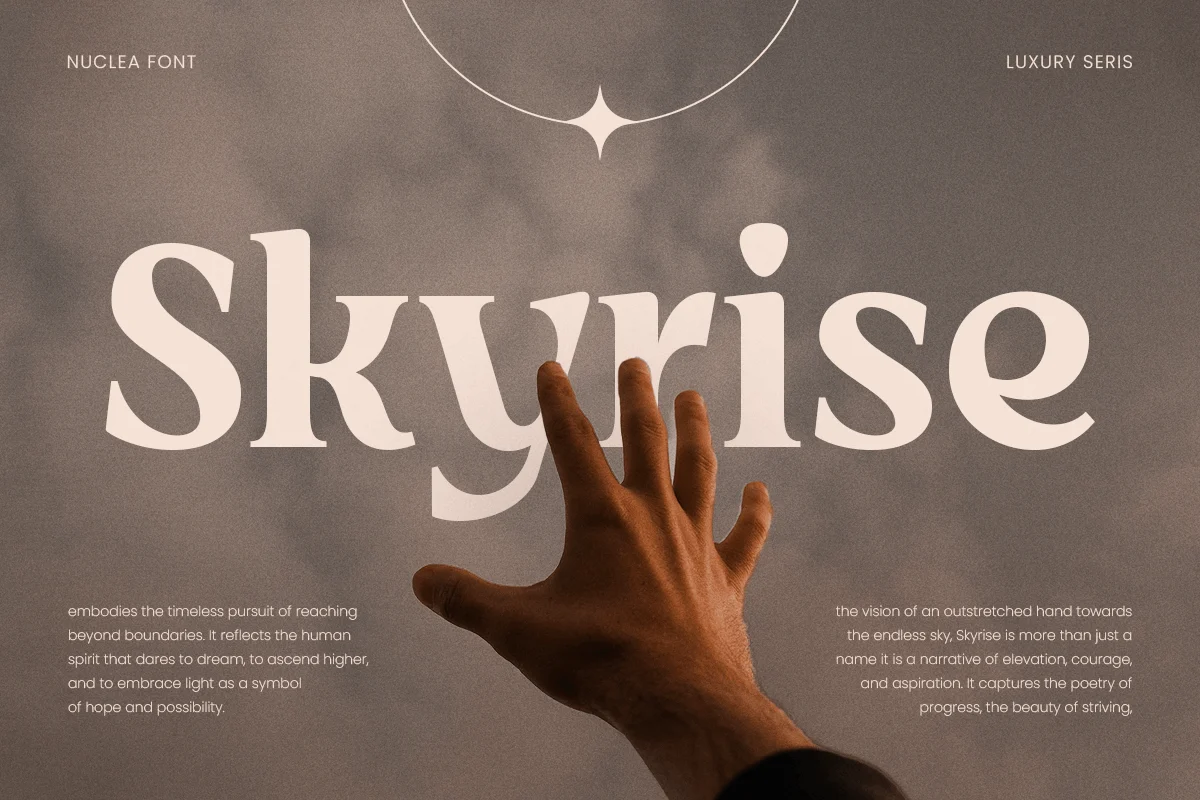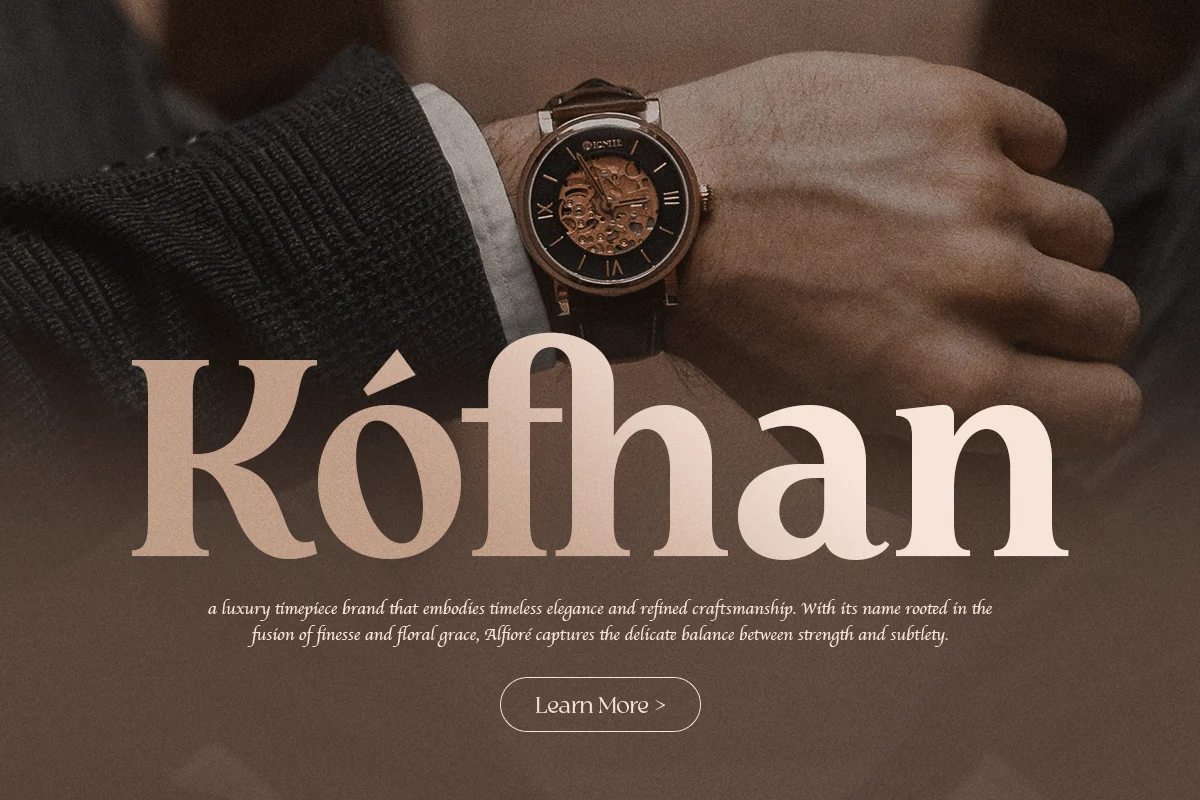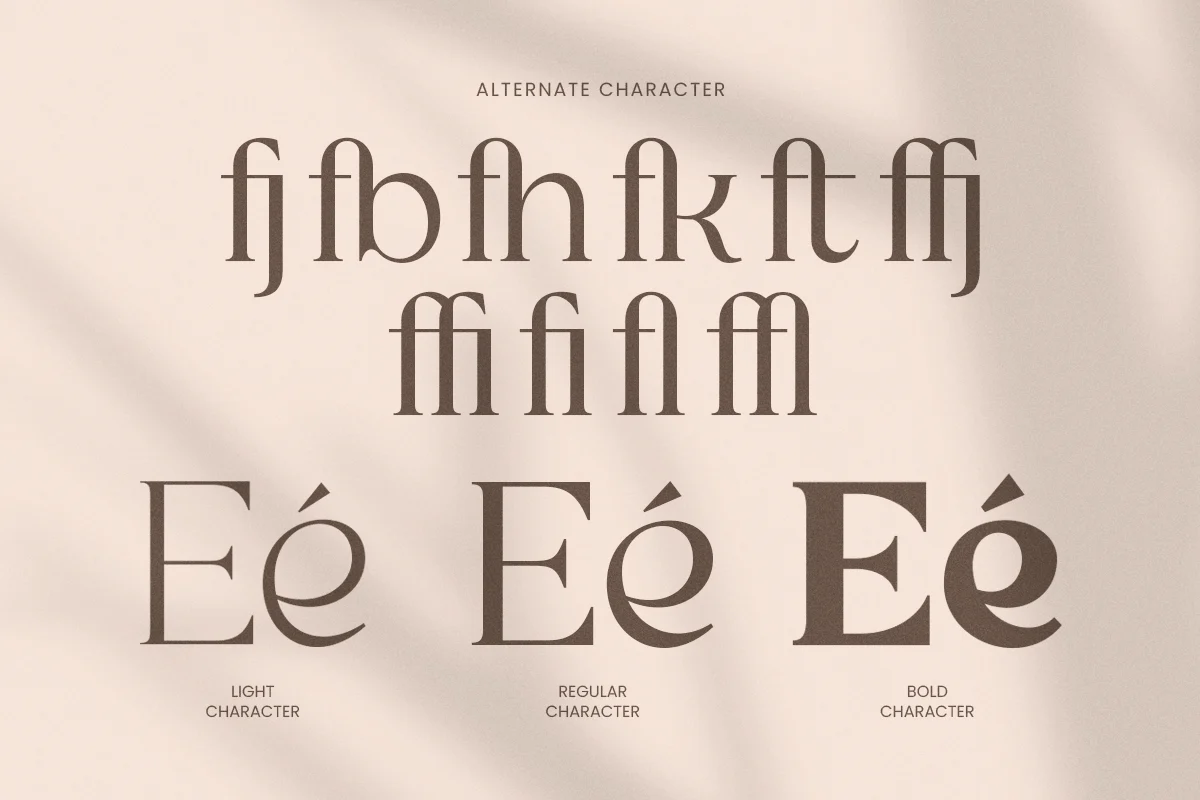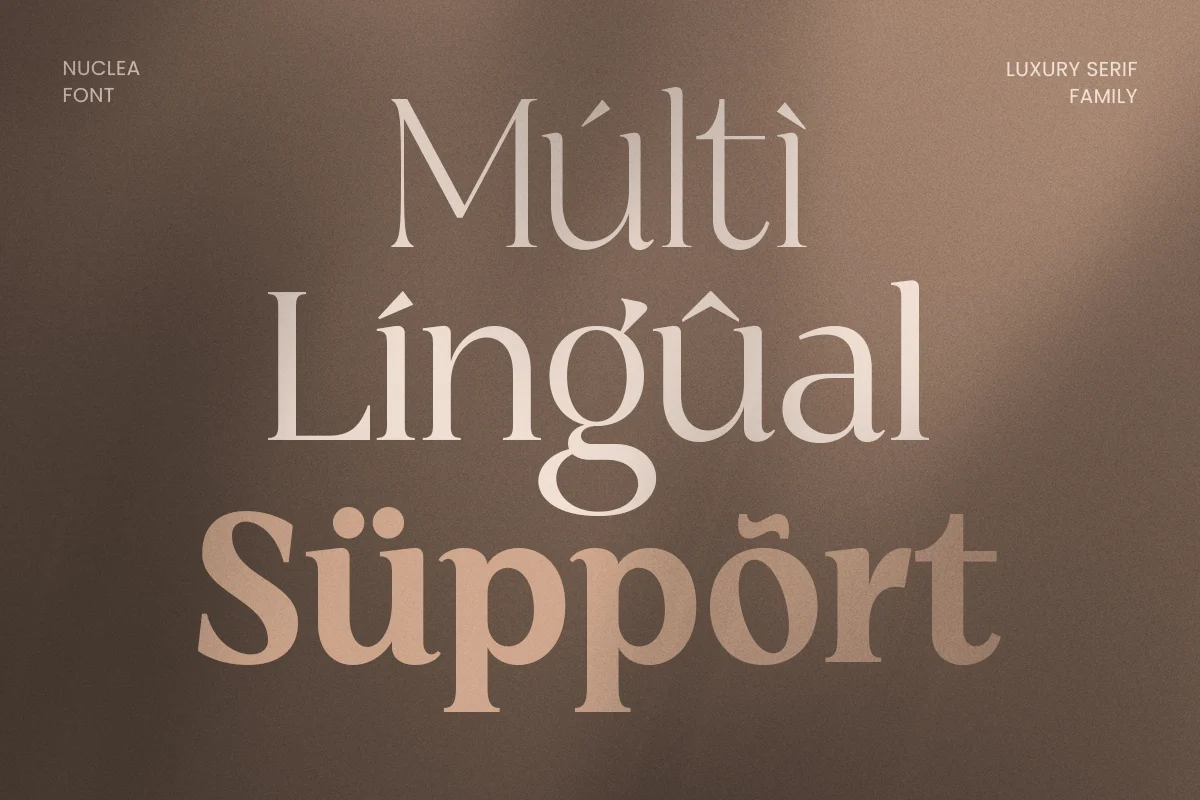
Awaking – Luxury Serif Font Family
Awaking is a luxury serif font family created to bring timeless beauty and sophistication to your branding and design projects. Designed with refined details and harmonious proportions, it’s ideal for high-end brands, magazines, fashion editorials, and elegant visual identities.
Each weight in the Awaking font family is carefully crafted to ensure flexibility and consistency — from light and graceful titles to bold, confident headlines. Its balanced contrast and exquisite serifs make it perfect for editorial layouts, luxury packaging, and refined typographic compositions.
Whether used in print or digital media, Awaking embodies elegance, professionalism, and visual harmony. Perfect for designers who value clarity, craftsmanship, and a touch of grandeur in their typography.
Awaking – Luxury Serif Font Family Features
- Elegant serif family with multiple weights and styles
- Available with Light, Regular and Bold Weights
- Perfect for branding, editorials, logos, and premium packaging
- Timeless and luxurious look suitable for fashion and lifestyle brands
- Works beautifully for magazines, invitations, and advertising
- OpenType features for advanced typography flexibility
Redefine elegance with Awaking – the ultimate luxury serif font family for premium branding, editorial design, and timeless typography. ✨📖